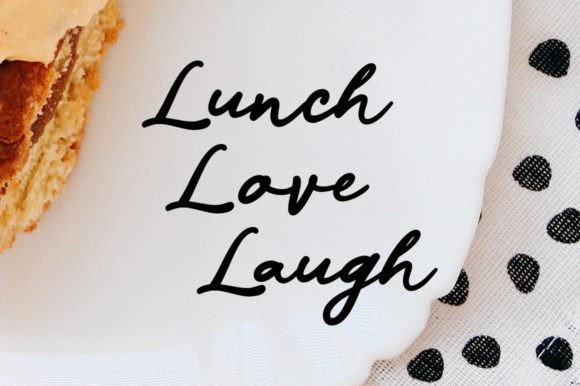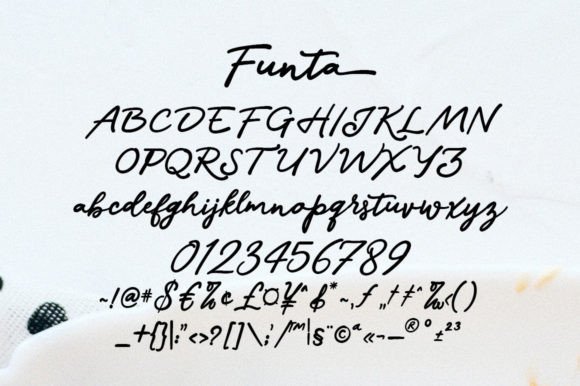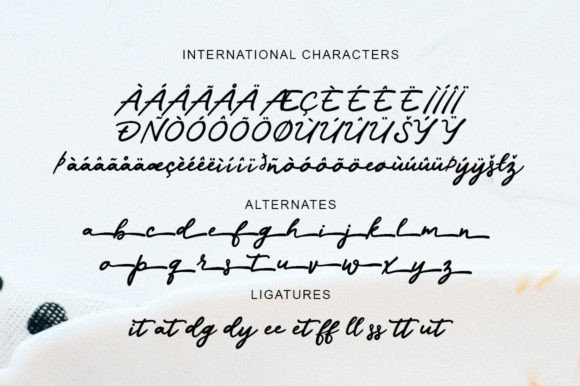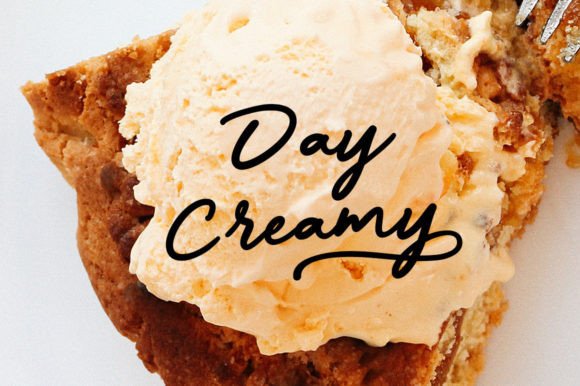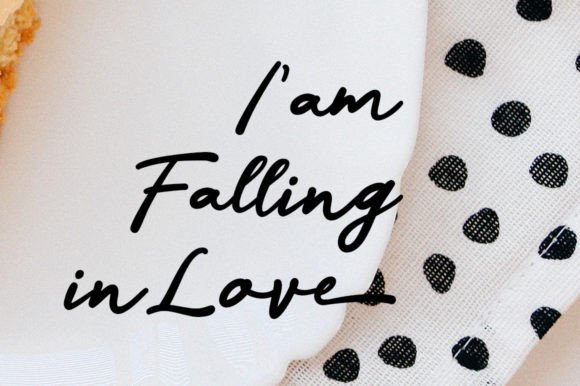
Funta Font: Add a Touch of Whimsy to Your Designs
Are you looking for a font that can add a dash of fun and personality to your designs? Look no further than Funta Font, a casual handwritten script font that’s perfect for a wide range of creative projects. In this article, we’ll take a closer look at Funta Font, its features, and how it can elevate your designs.
What is Funta Font?
Funta Font is a fun and casual handwritten script font designed to bring a touch of whimsy to your designs. With its playful and carefree vibe, Funta Font is perfect for designers, crafters, and anyone looking to add some personality to their creations. Whether you’re working on a branding project, creating social media graphics, or designing a craft project, Funta Font is a wonderful asset to have in your font library.
Key Features of Funta Font
So, what makes Funta Font so special? Here are some of its key features:
- Handwritten script font: Funta Font has a beautiful, handwritten feel that’s perfect for creating personal and engaging designs.
- Fun and casual: This font is designed to be fun and casual, making it perfect for designs that need a playful touch.
- Versatile: Funta Font can be used for a wide range of projects, from branding and advertising to crafting and DIY projects.
- Easy to read: Despite its playful feel, Funta Font is easy to read, making it perfect for designs that need to communicate a message.
How to Use Funta Font
So, how can you use Funta Font in your designs? Here are some ideas to get you started:
- Branding and advertising: Use Funta Font to create fun and engaging branding materials, such as logos, business cards, and brochures.
- Social media graphics: Add a touch of personality to your social media graphics, such as Facebook posts, Instagram stories, and Twitter headers.
- Crafting and DIY projects: Use Funta Font to create custom signs, labels, and other embellishments for your crafting and DIY projects.
- Party decorations: Create fun and festive party decorations, such as banners, garlands, and invitations.
Benefits of Using Funta Font
So, why should you choose Funta Font for your designs? Here are some benefits of using this font:
- Adds personality: Funta Font adds a touch of personality and whimsy to your designs, making them more engaging and fun.
- Versatile: This font can be used for a wide range of projects, making it a great addition to your font library.
- Easy to use: Funta Font is easy to use and pairs well with a variety of other fonts, making it easy to create beautiful designs.
- Unique: Funta Font is a unique and distinctive font that will help your designs stand out from the crowd.
Tips for Using Funta Font
Here are some tips for using Funta Font in your designs:
- Use it sparingly: While Funta Font is fun and playful, it can be overwhelming if used too much. Use it sparingly to add a touch of personality to your designs.
- Pair it with other fonts: Funta Font pairs well with a variety of other fonts, so don’t be afraid to experiment and find the perfect combination.
- Experiment with colors: Funta Font looks great in a variety of colors, so don’t be afraid to experiment and find the perfect color scheme for your design.
In conclusion, Funta Font is a fun and casual handwritten script font that’s perfect for designers, crafters, and anyone looking to add some personality to their creations. With its playful and carefree vibe, Funta Font is a wonderful asset to have in your font library. Whether you’re working on a branding project, creating social media graphics, or designing a craft project, Funta Font is sure to enhance your designs and add a touch of whimsy. So why not give Funta Font a try and see how it can elevate your designs?